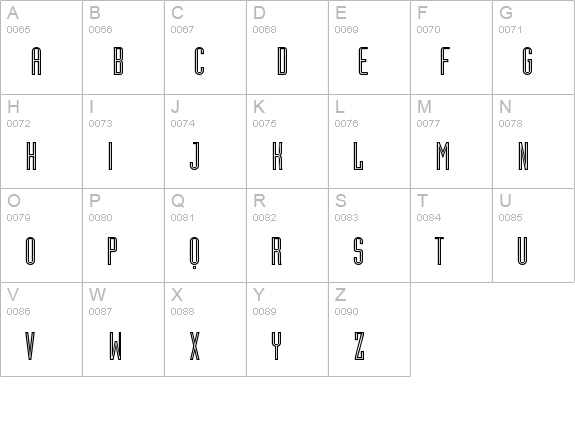
AssemblyAlternateSSK Font Details
AssemblyAlternateSSK is a modern and stylish font that exudes a sense of sophistication and creativity. Its unique design features sharp angles and sleek lines, making it perfect for projects that require a contemporary and edgy aesthetic. With its bold and eye-catching appearance, AssemblyAlternateSSK is sure to make a statement in any design. What makes AssemblyAlternateSSK even more appealing is that it is available for free download at FontsMarket.com. This means that you can easily access this fantastic font without any cost, making it a great choice for designers and creatives looking to enhance their projects without breaking the bank. Don't miss out on the opportunity to add AssemblyAlternateSSK to your font collection today!